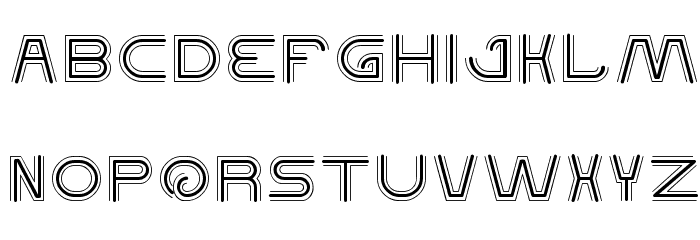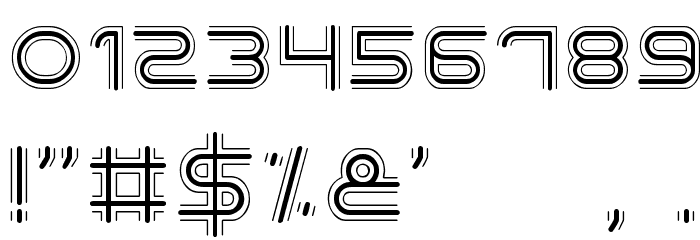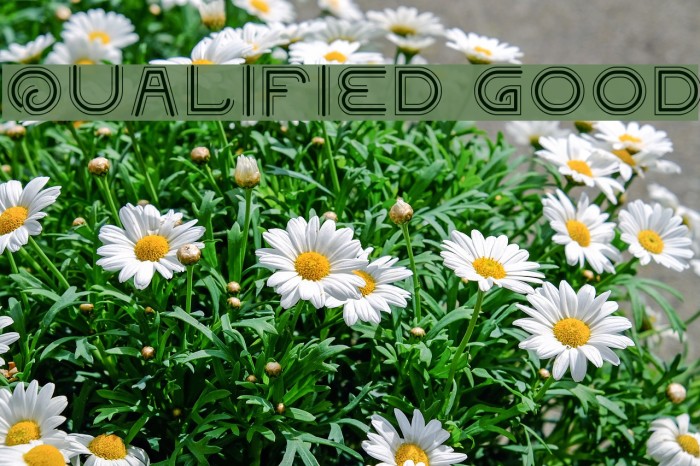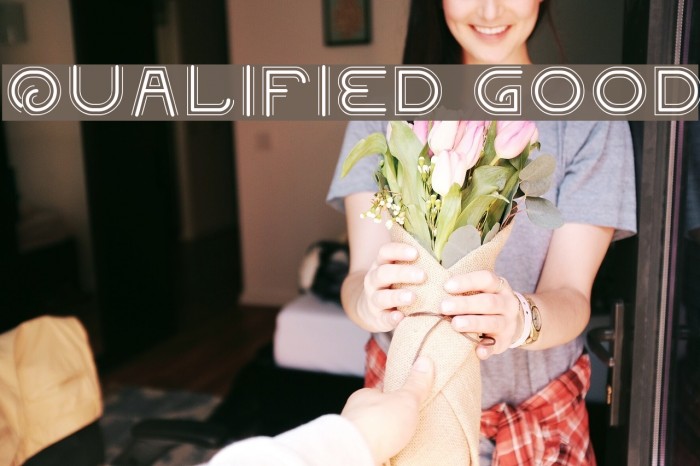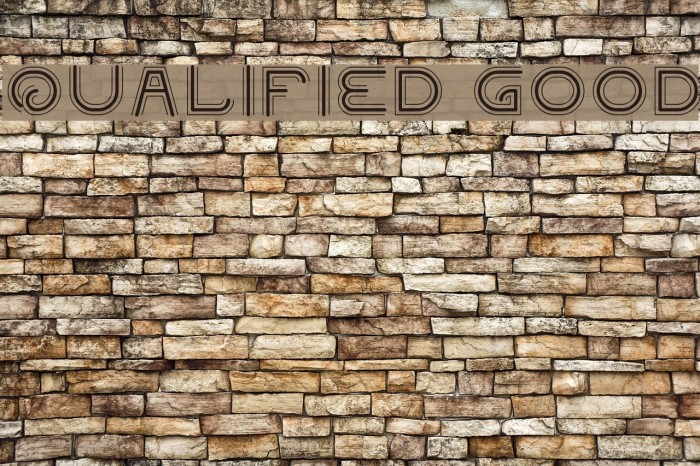
QUALIFIED GOOD Font
This font features a unique, futuristic design with a distinct geometric style. Each character is composed of multiple parallel lines, creating a layered effect that adds depth and visual interest. The uppercase letters are bold and striking, with angular shapes and sharp corners. The lowercase letters maintain the same geometric theme, offering a cohesive look across the alphabet. Numbers and special characters are designed with the same attention to detail, ensuring consistency throughout. This font's modern aesthetic makes it ideal for projects that require a contemporary and innovative feel.
A futuristic, geometric font with layered lines and bold, angular shapes.
- Proposed Projects: Ideal for technology branding, sci-fi posters, modern art projects, and innovative product packaging.